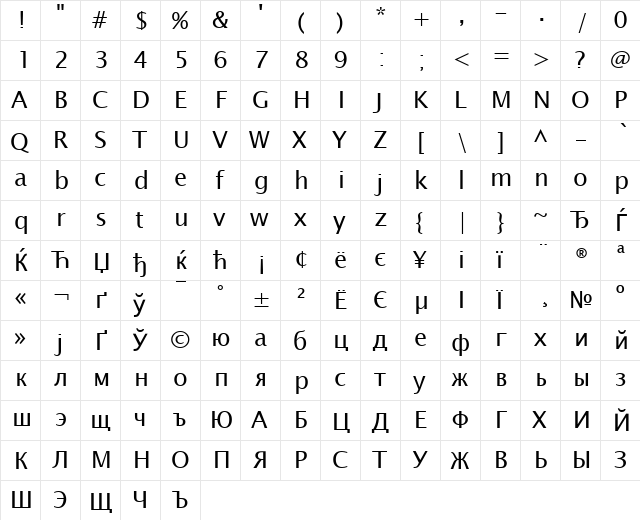
Lucida Sans KOI8 Regular
Design Context for Lucida Sans KOI8 Typeface
Lucida Sans KOI8 takes a measured approach to typography — its balanced proportions and neutral character make it a reliable workhorse for both digital and print work.